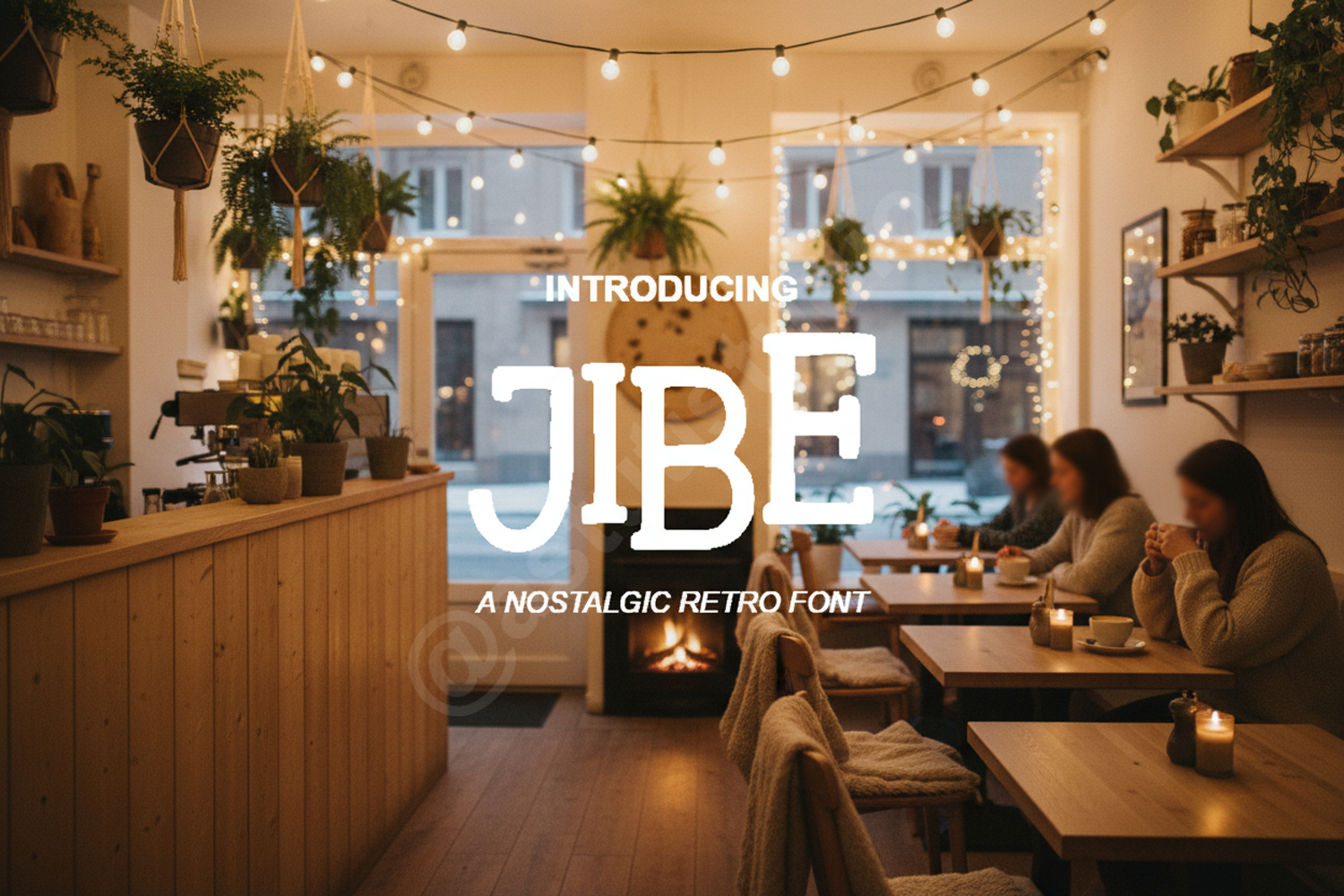
Jibe - Modern Geometric Sans Serif
Jibe
Welcome to Jibe, a masterfully crafted sans-serif typeface designed for high-impact clarity and sophisticated minimalism. Jibe balances sharp geometric precision with approachable curves, making it the perfect choice for designers seeking a contemporary aesthetic that remains timelessly professional. Whether you are building a brand from the ground up or looking for a clean display font to elevate your next project, Jibe delivers premium quality in every glyph.
- Full Uppercase and Lowercase Alphabet
- Comprehensive Numbers and Punctuation
- Extensive Multilingual Support for global reach
- Corporate Branding and Identity: Create a lasting impression with a clean and authoritative logo.
- Wedding Stationery: Perfect for modern, minimalist wedding invitations and menus.
- Editorial Design: Ideal for high-end magazine layouts and clear body copy.
- Digital Marketing: Optimized for social media graphics, advertisements, and web banners.
- UI/UX Design: Ensures readability across all digital platforms and interface designs.